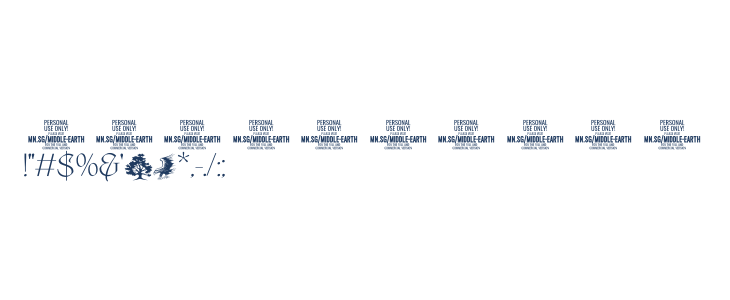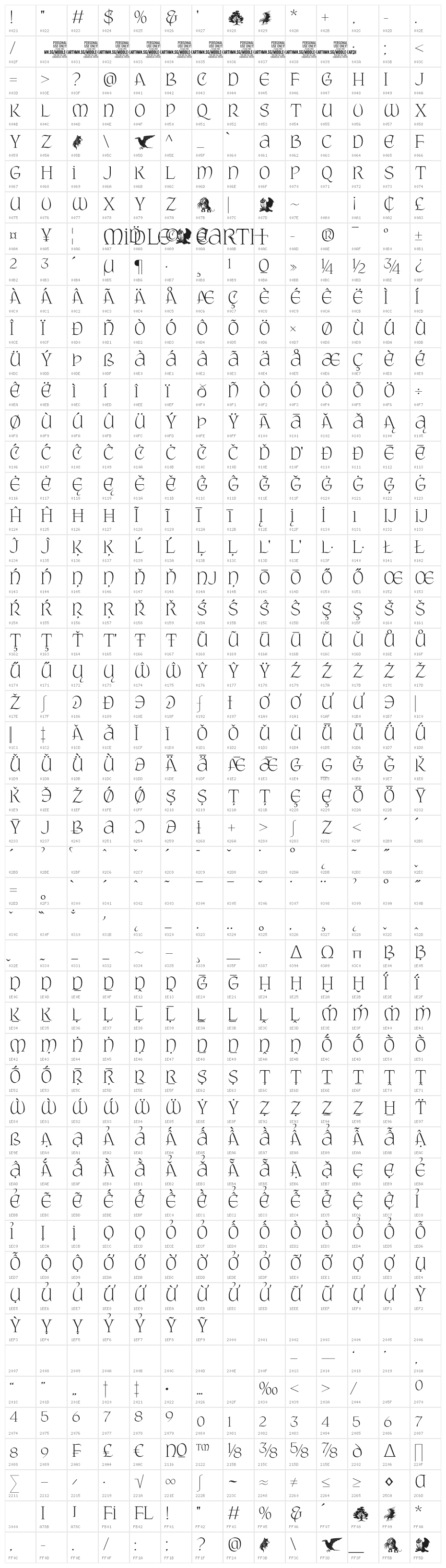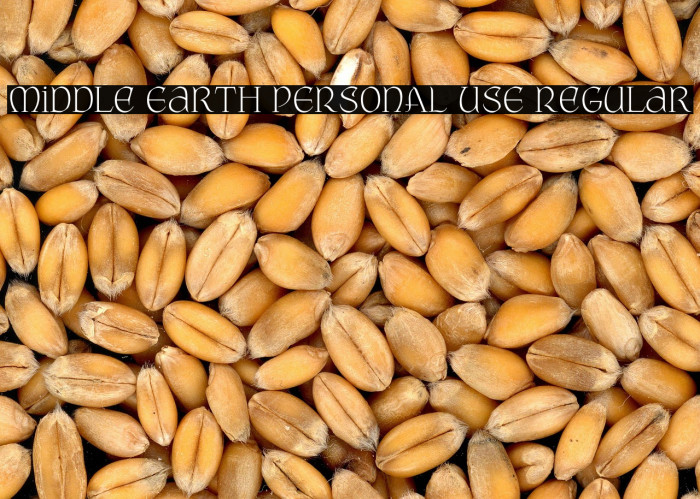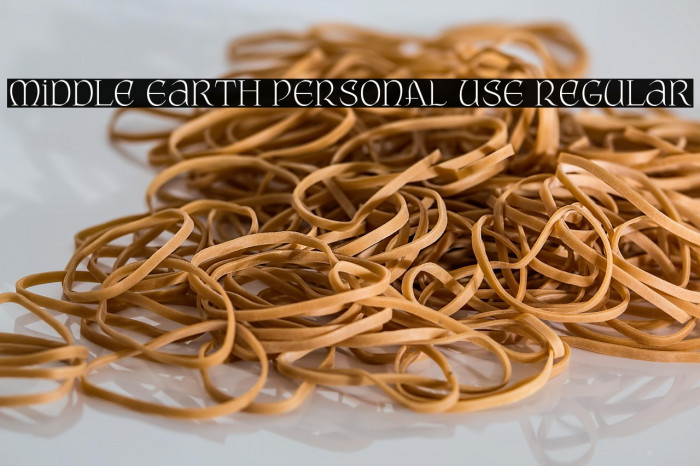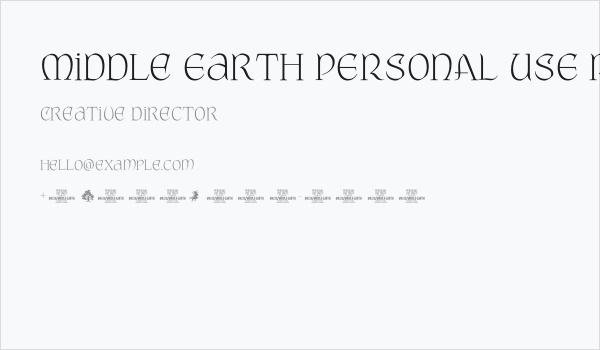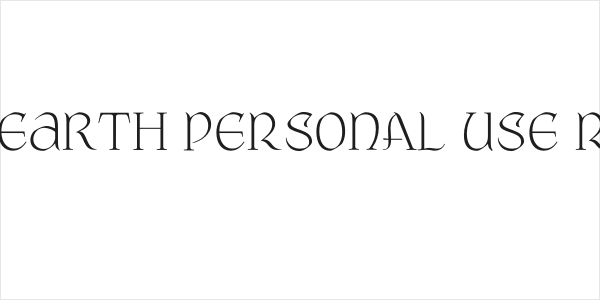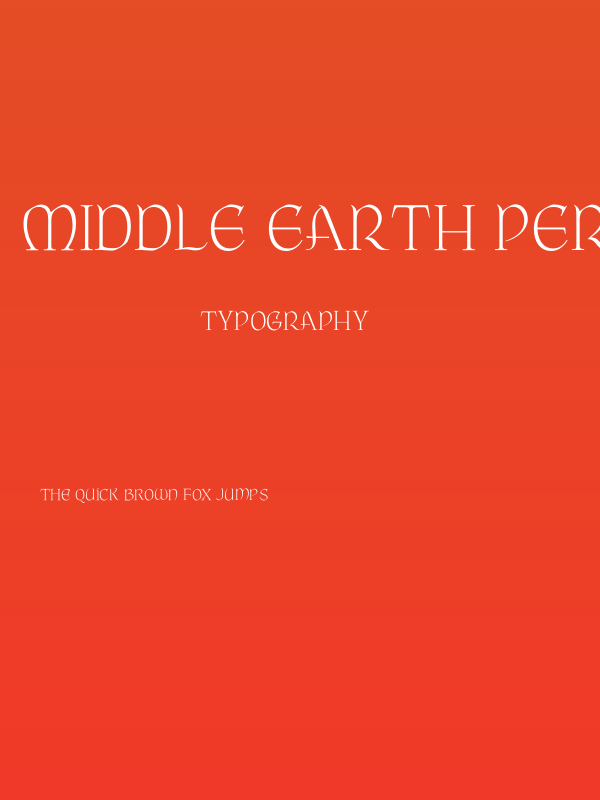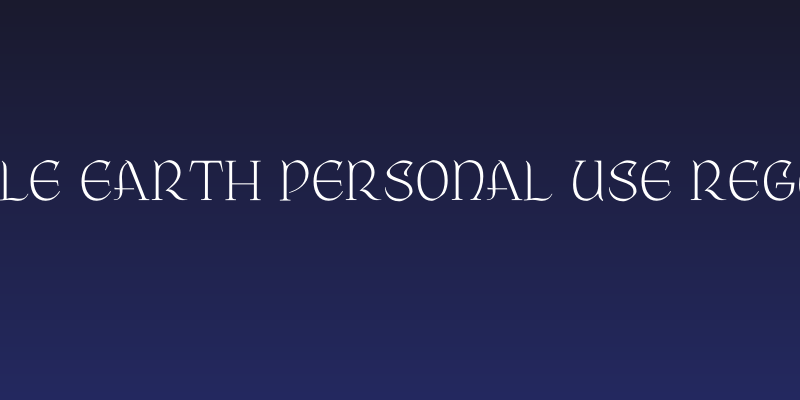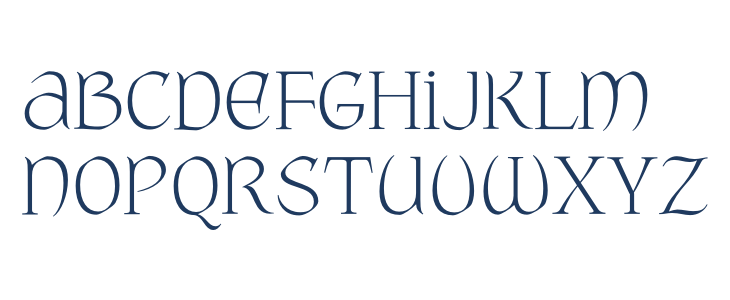
Middle Earth PERSONAL USE Regular Font
Middle Earth PERSONAL USE Regular Description
This font captures an elegant and mystical essence, reminiscent of ancient scripts and fantasy worlds. The characters are designed with a unique flair, featuring sharp serifs and flowing curves that evoke a sense of mystery and adventure. The uppercase letters are particularly striking, with elongated strokes and intricate detailing that add a touch of sophistication. The lowercase letters maintain a harmonious balance, complementing the uppercase with their graceful forms. Special characters and symbols are crafted with the same attention to detail, enhancing the font's overall aesthetic. This font is perfect for projects that require a touch of fantasy or historical ambiance.
| Overall Style | Fantasy, Elegant |
| Use Case | Headlines, Logos, Decorative text |
| Proposed Projects | Ideal for fantasy book covers, themed event invitations, and role-playing game graphics. |